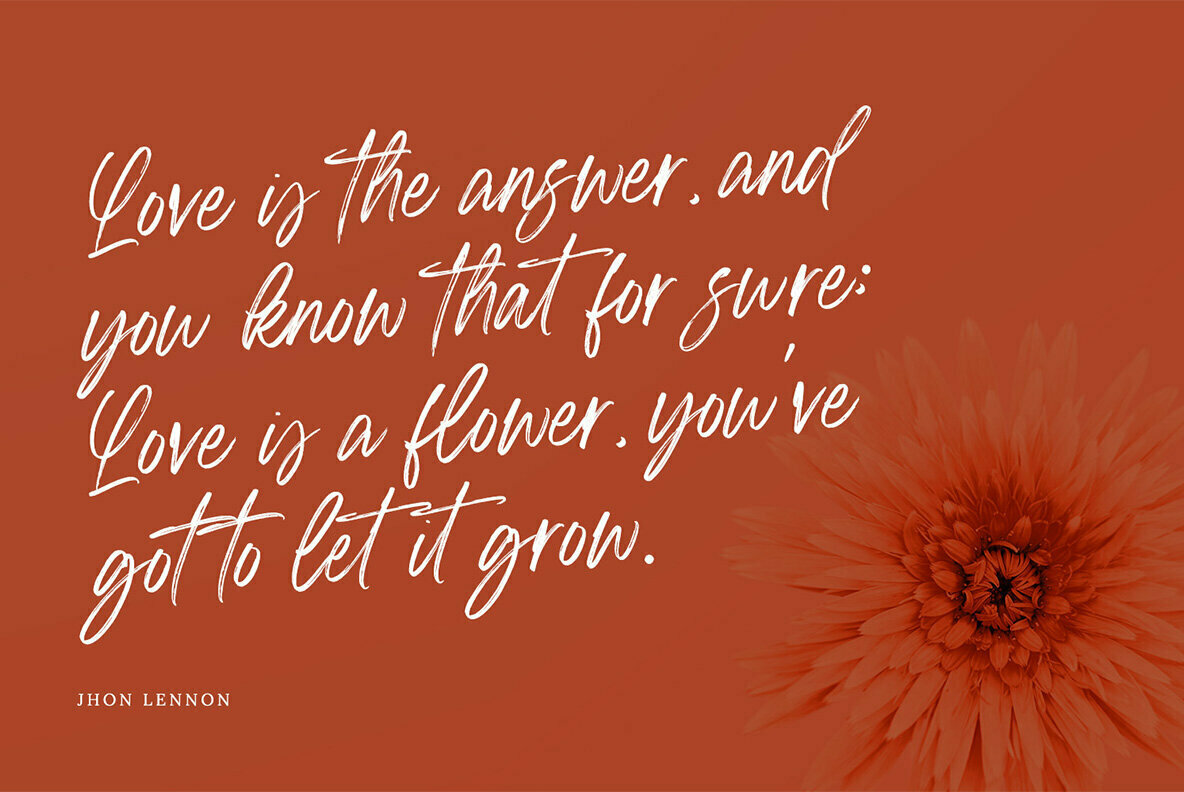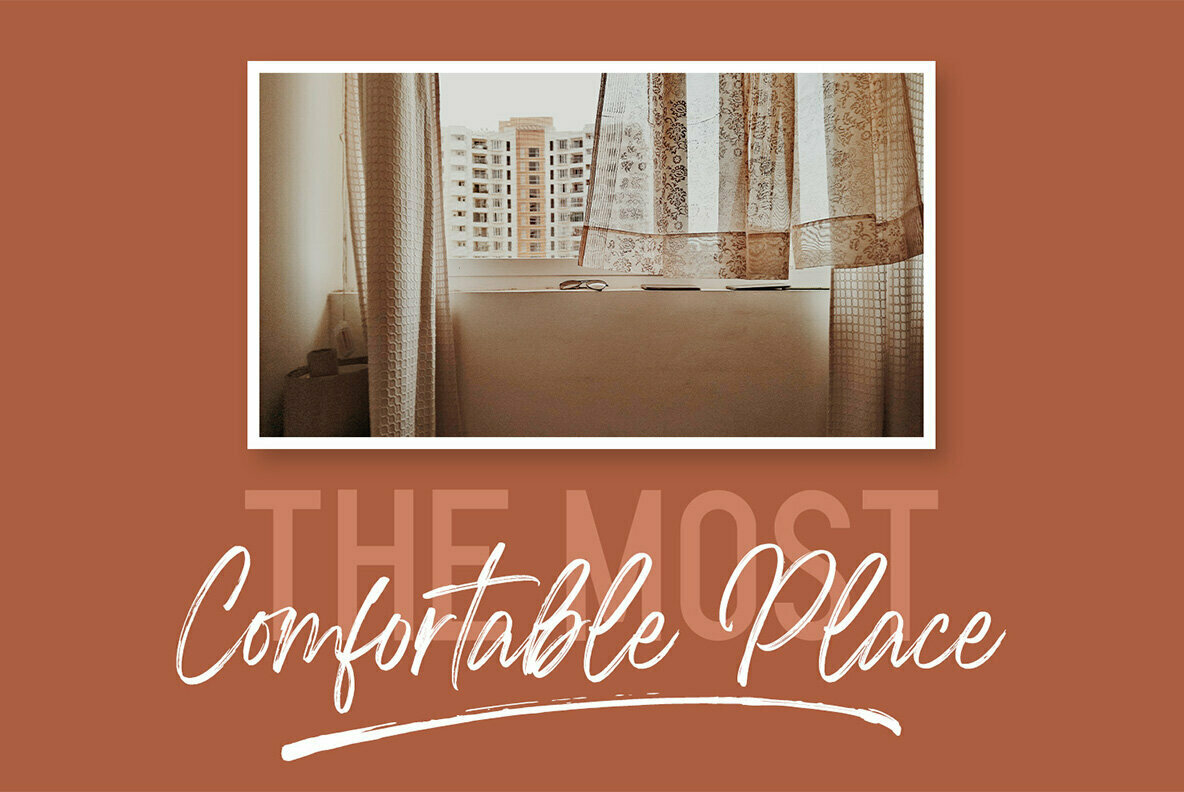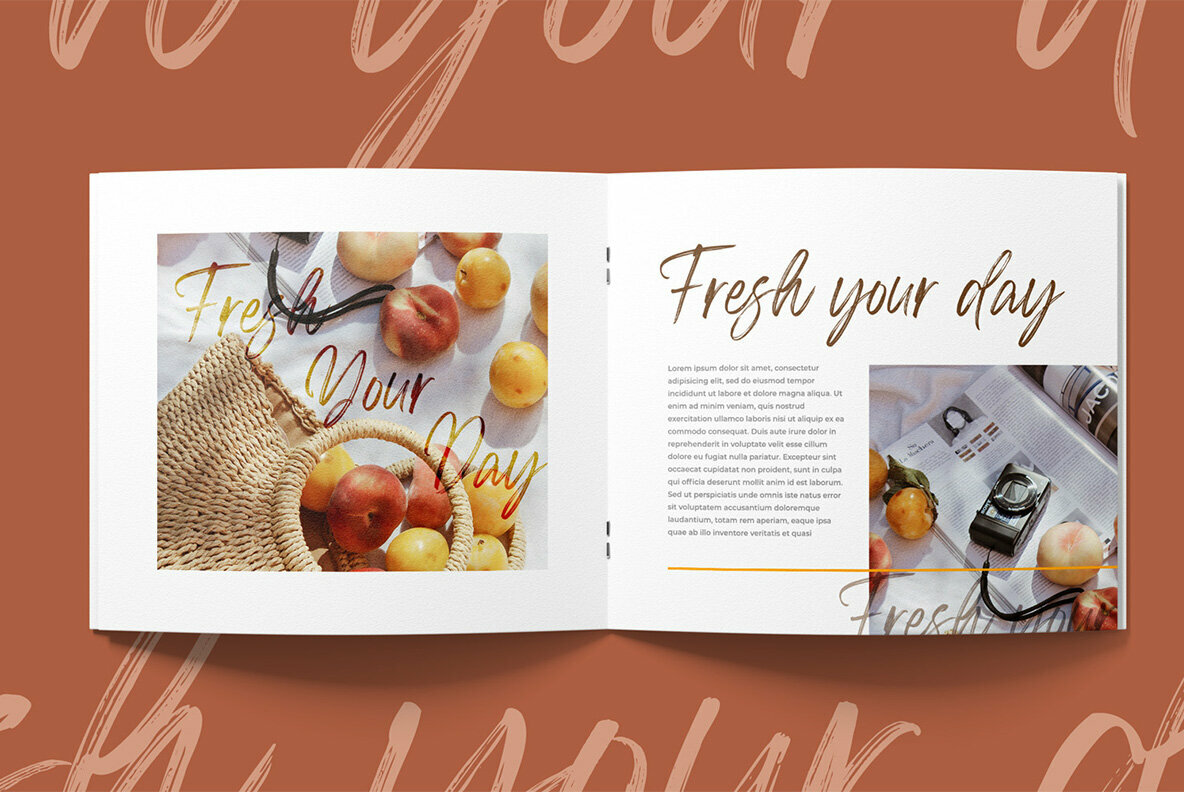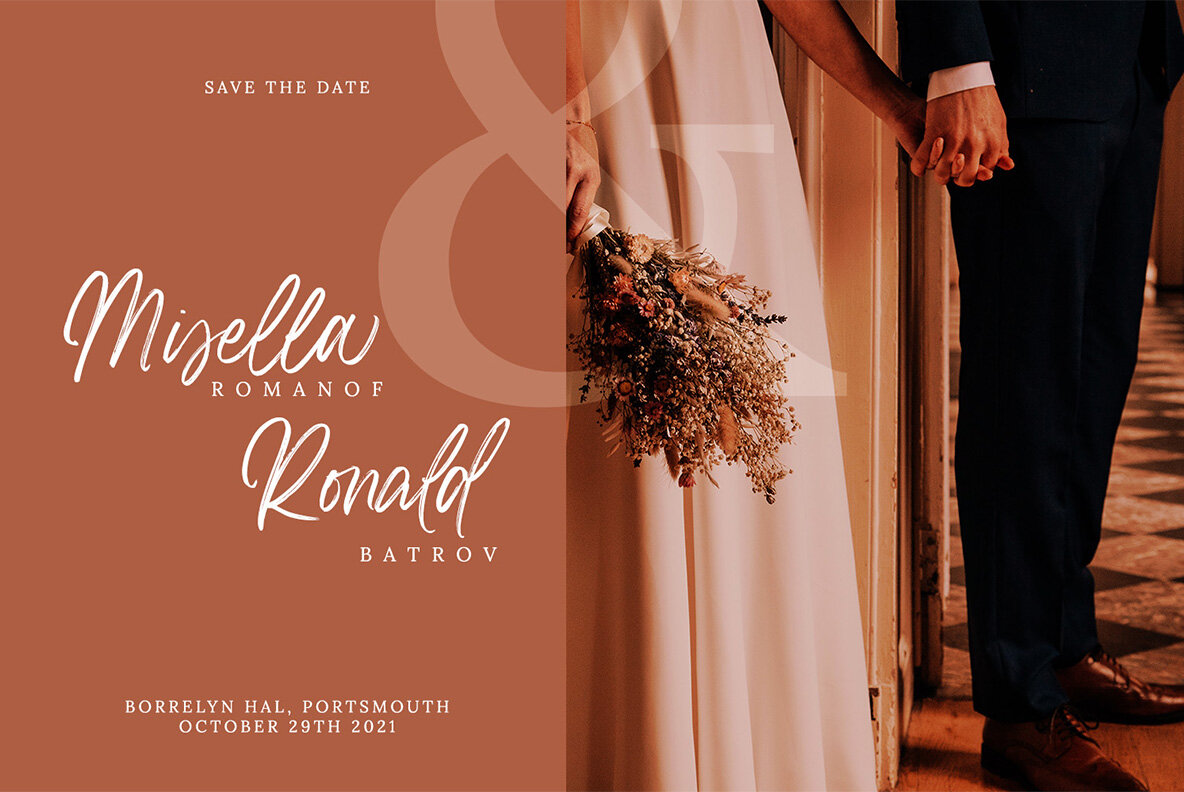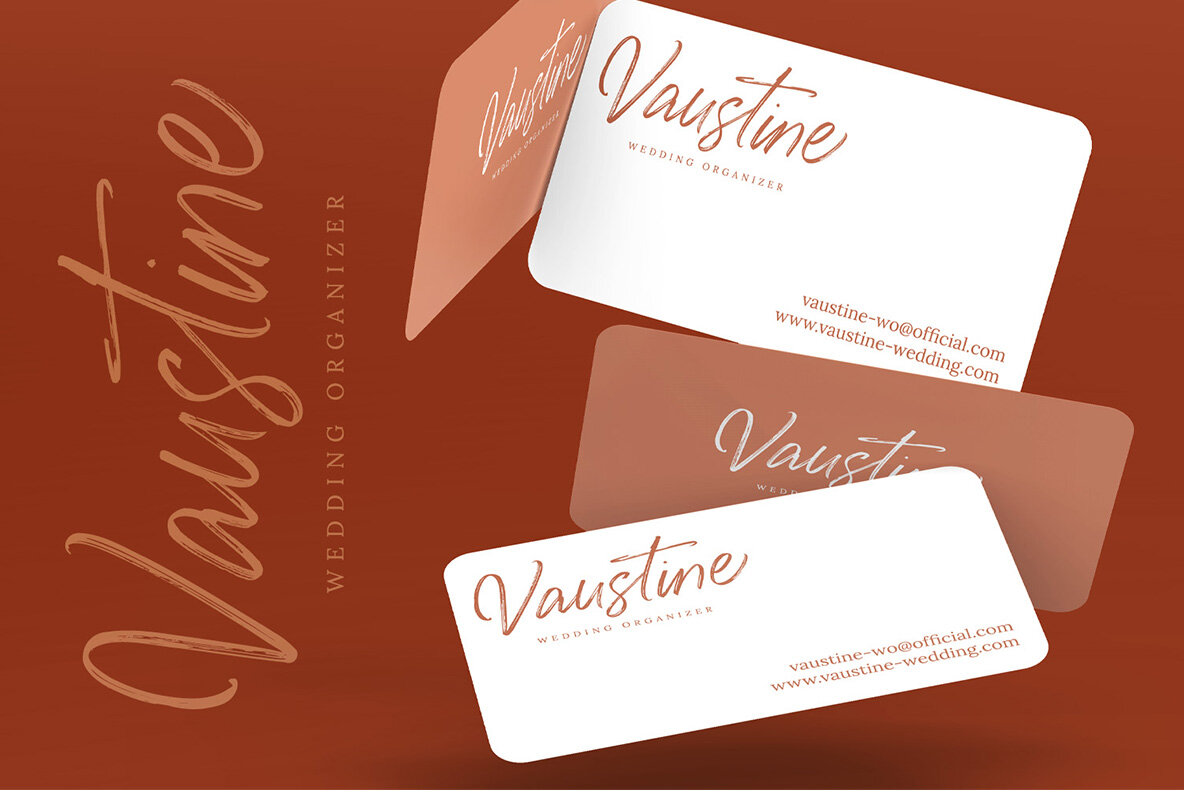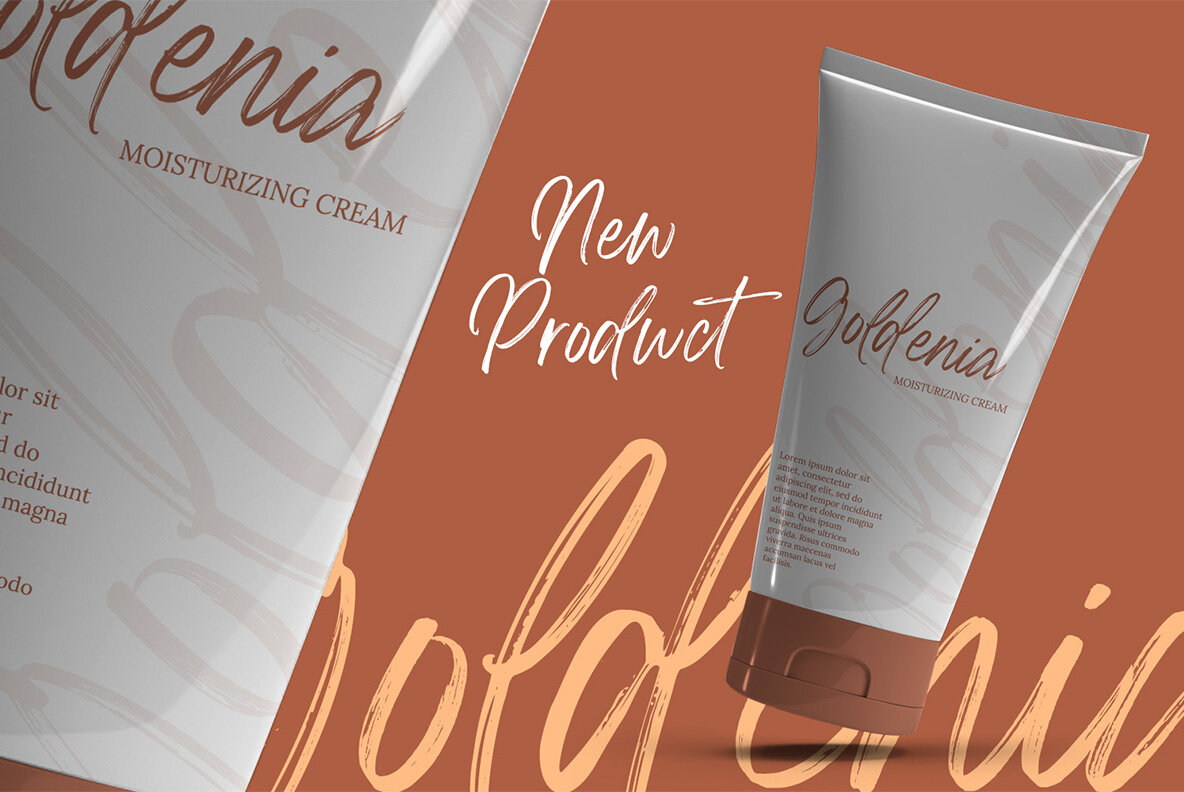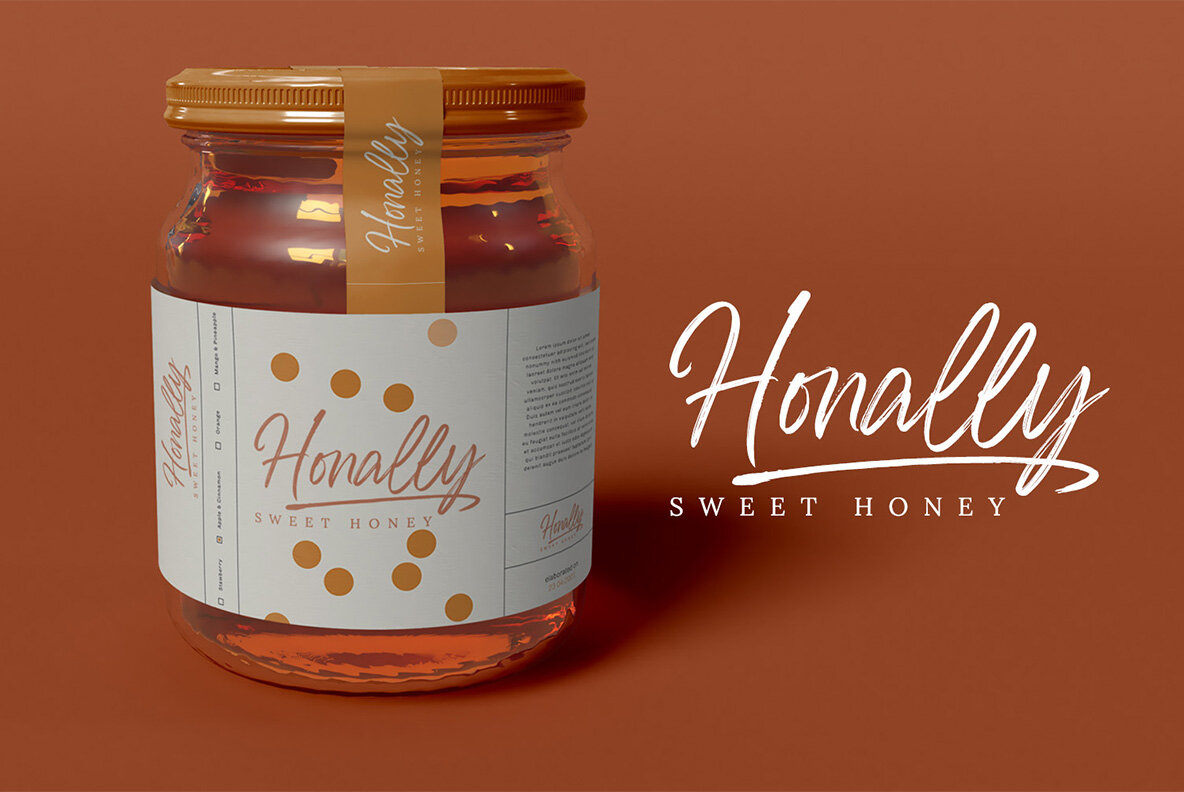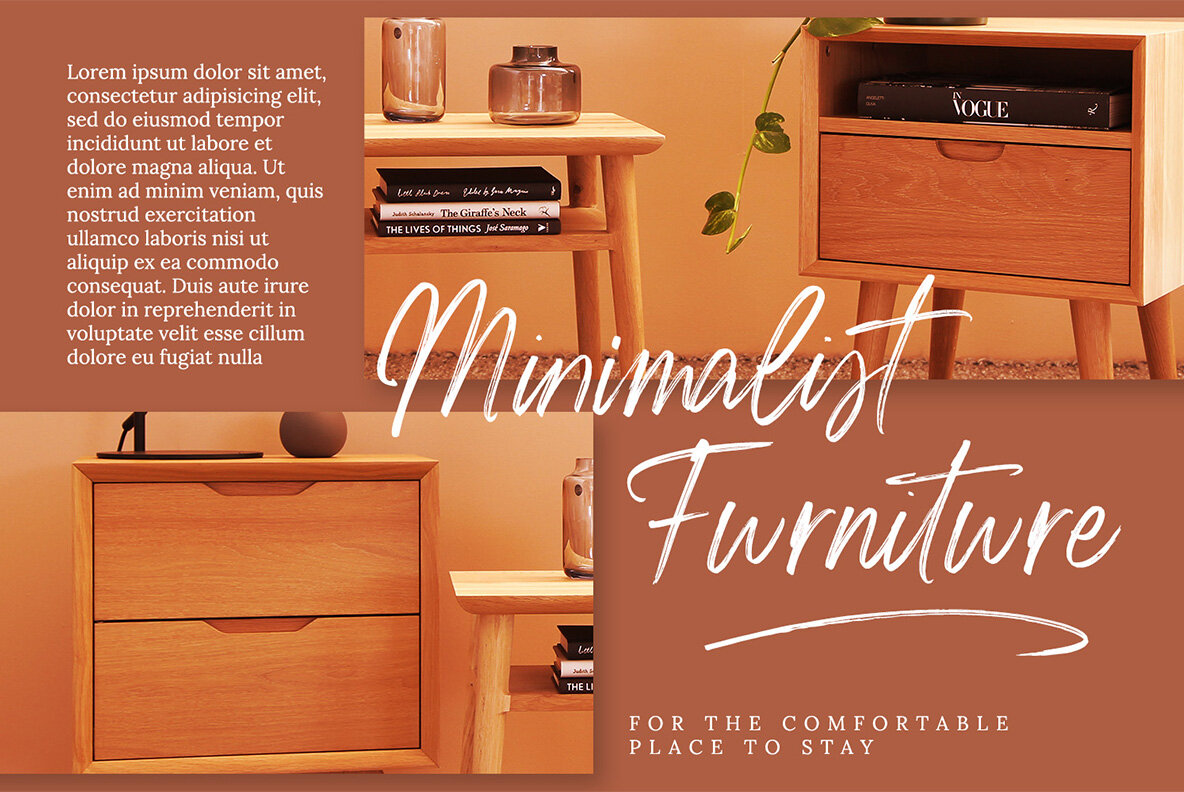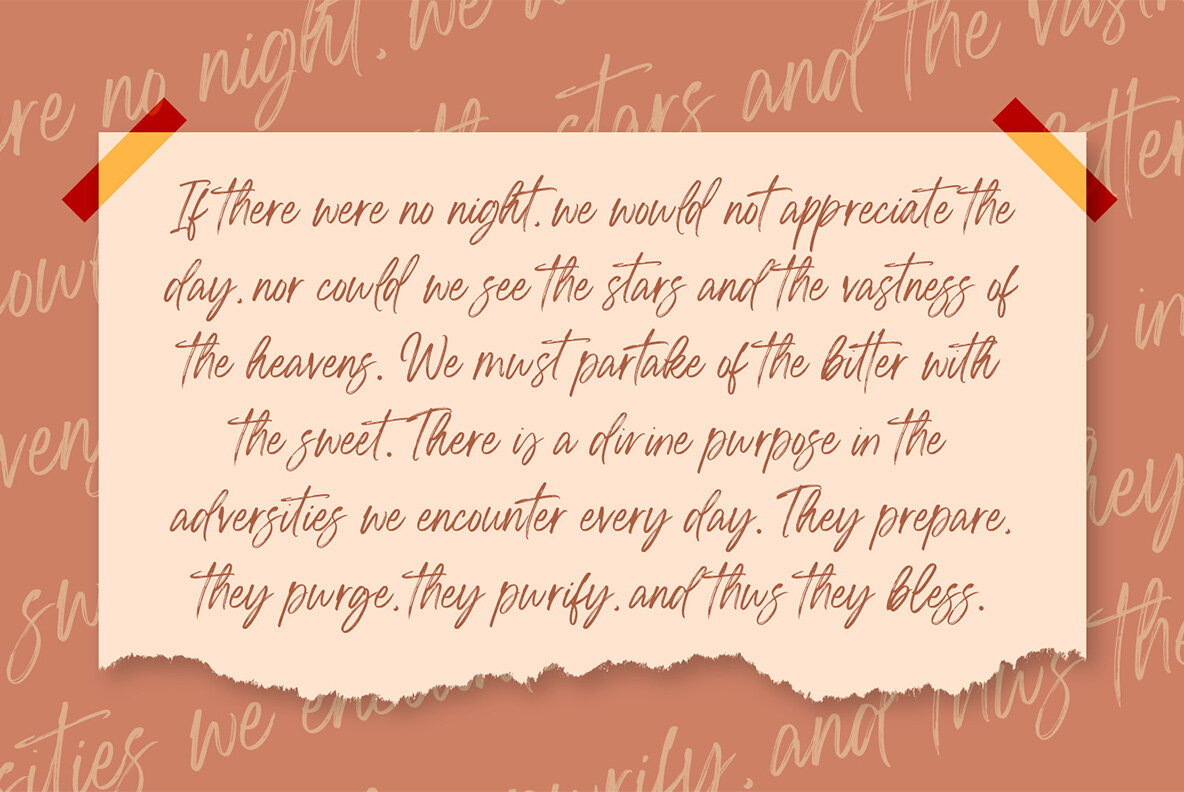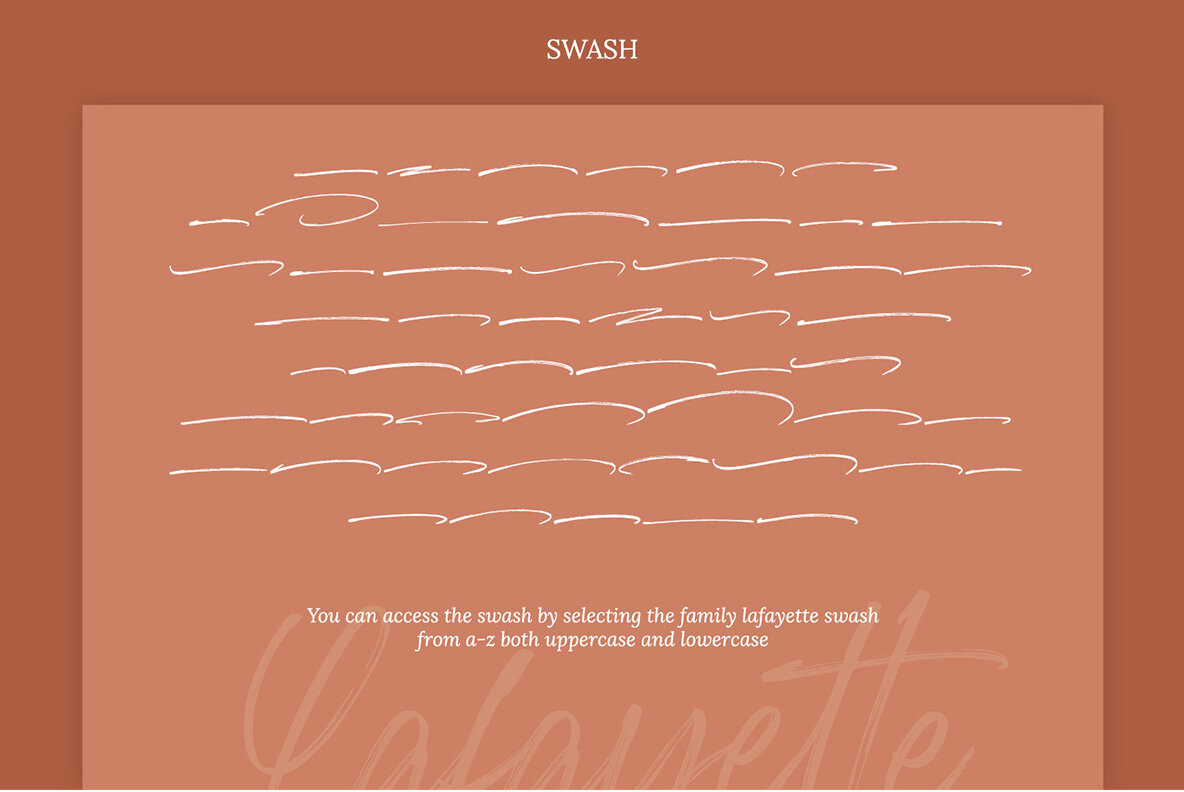
Lafayette Font
Lafayette is a distinctive handwritten font that infuses modern brush style elements for a visually compelling appearance. This typeface brings an enticing touch of beauty and sophistication, enriched with an exclusive set of swashes. It's an excellent choice for those aiming to enhance their designs with elegance and flair. Lafayette is versatile and ideal for projects ranging from titles and poster designs to branding, quotes, and logos. For global branding efforts, Lafayette includes comprehensive multilingual support, ensuring extensive reach and communication effectiveness.Lafayette: Modern Handwritten Elegance